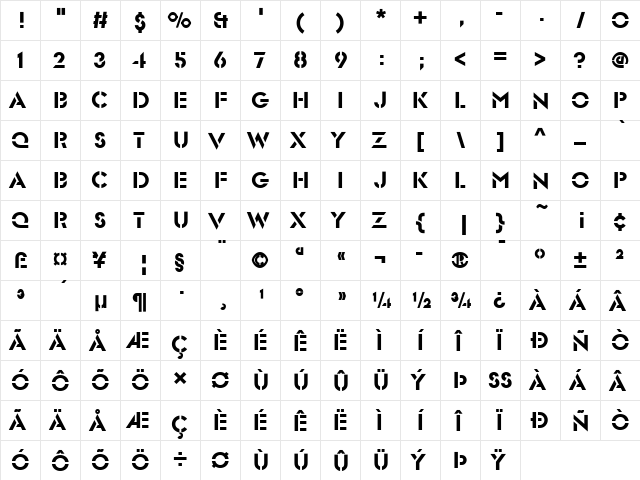
Glaser Stencil D Regular Font Preview
Glaser Stencil D Regular
Glaser Stencil D Regular Font Details
Design Context for Glaser Stencil D Typeface
Glaser Stencil D borrows the utilitarian aesthetic of stencil lettering, with its characteristic cutaways and no-frills construction lending an industrial edge.
A strong choice for packaging that needs edge, warehouse aesthetics, and rough-and-ready visual identities.
Pro Tip: Use Glaser Stencil D at large sizes on packaging, posters, or apparel where the stencil cutaways read clearly. Avoid small sizes where those gaps become visual noise.